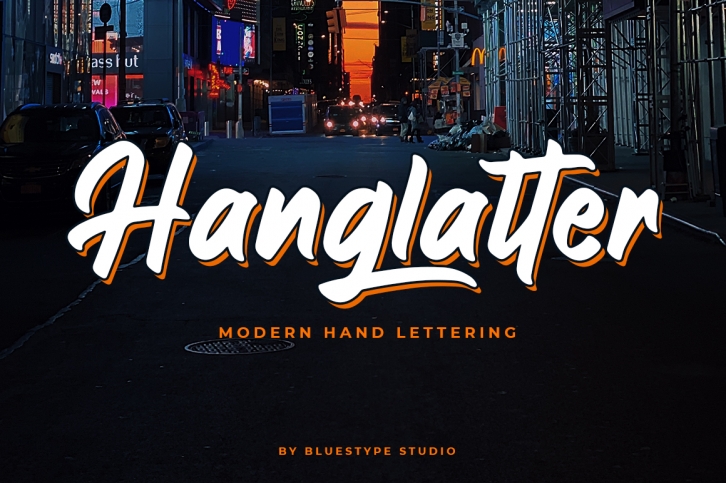
Hanglatter is a great font that was designed by Bluestype Studio. Imagine the amount of combinations you can create using this font! The archive is 16.90 MB and it was released on January 1, 2020. Hanglatter looks beautiful on wedding invitations, greeting cards, logos, posters, labels, t-shirt designs, logos, business cards and is perfect for use in ink or watercolor works, fashion, magazines, packaging and food menus, children's books and more!